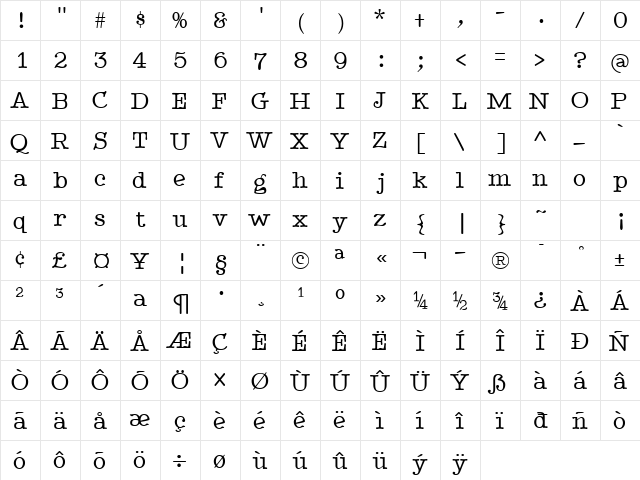
BetterTypeRightMedium Regular
Design Context for BetterTypeRightMedium Typeface
BetterTypeRightMedium is a composed and adaptable typeface that performs quietly and consistently across a wide range of design contexts.